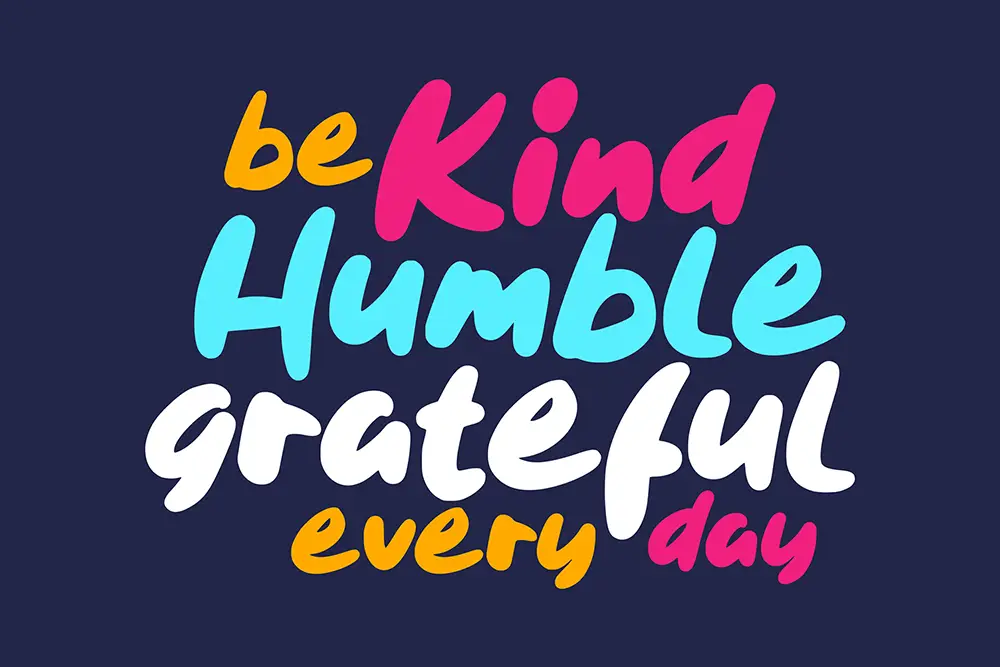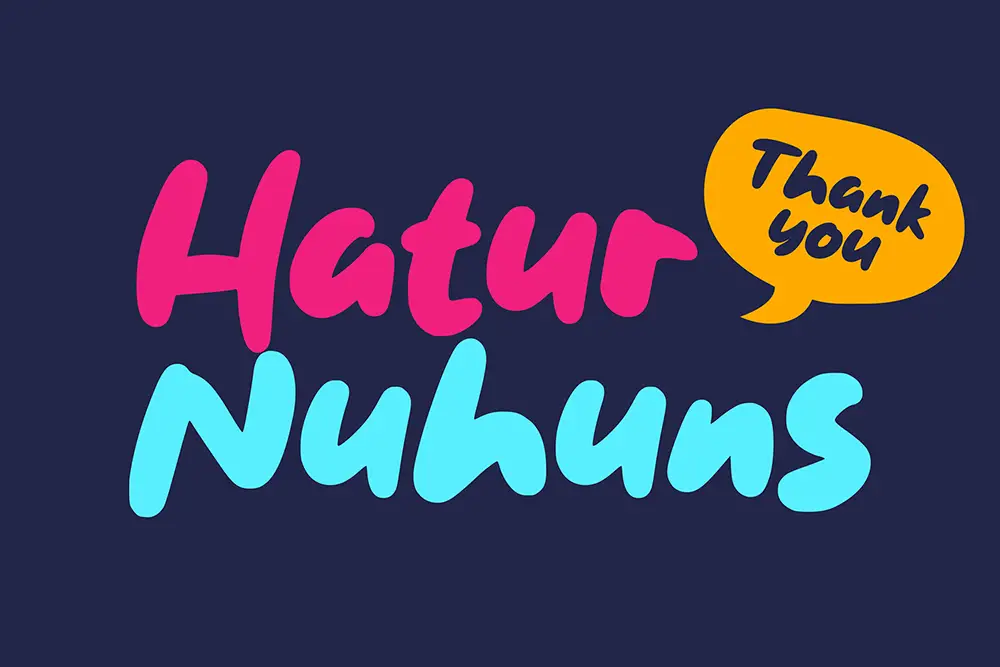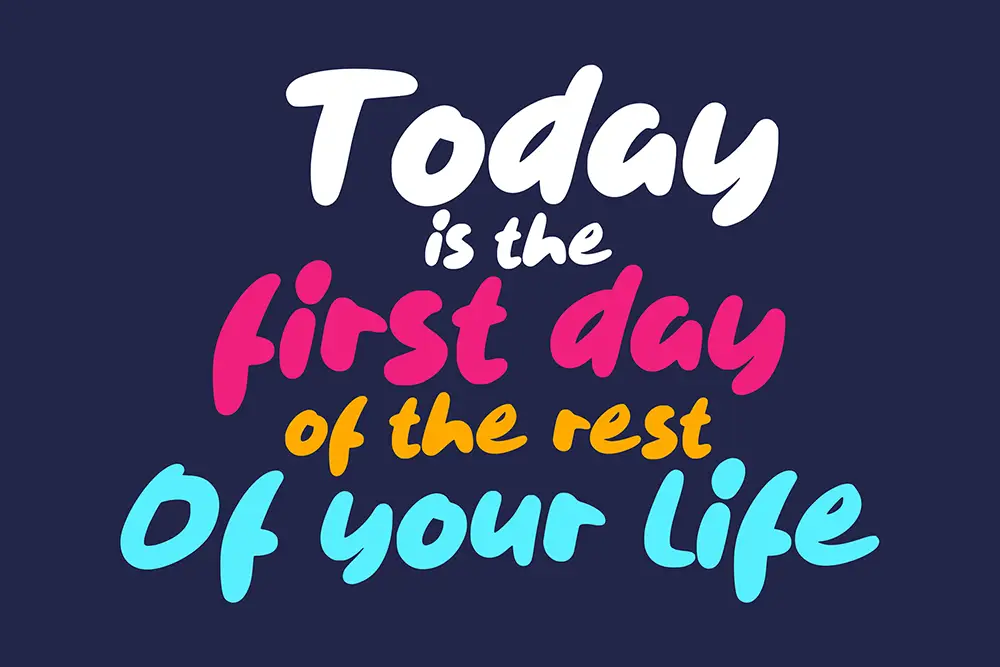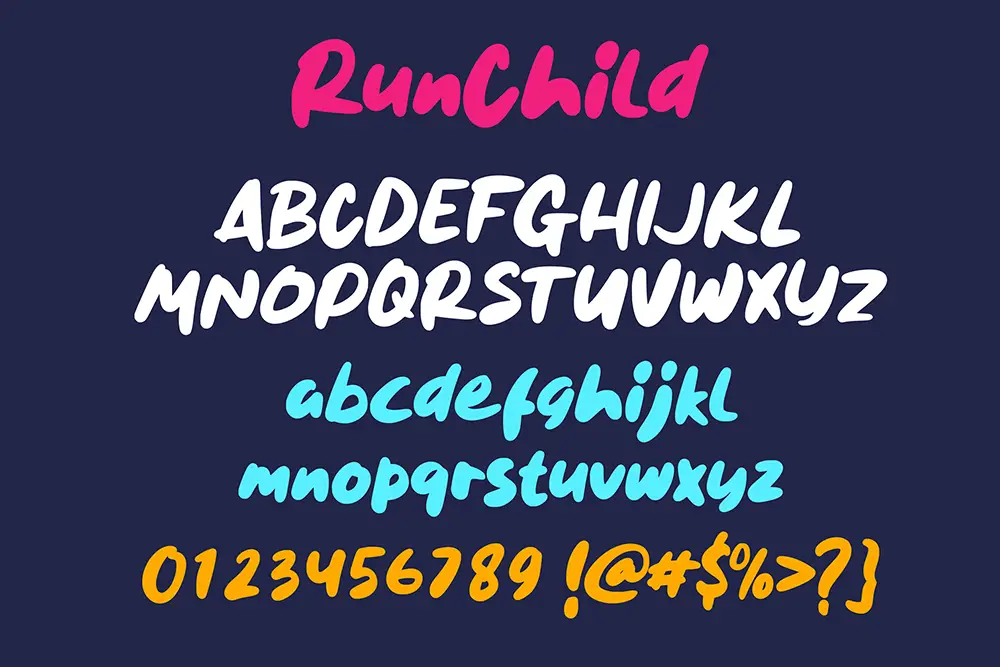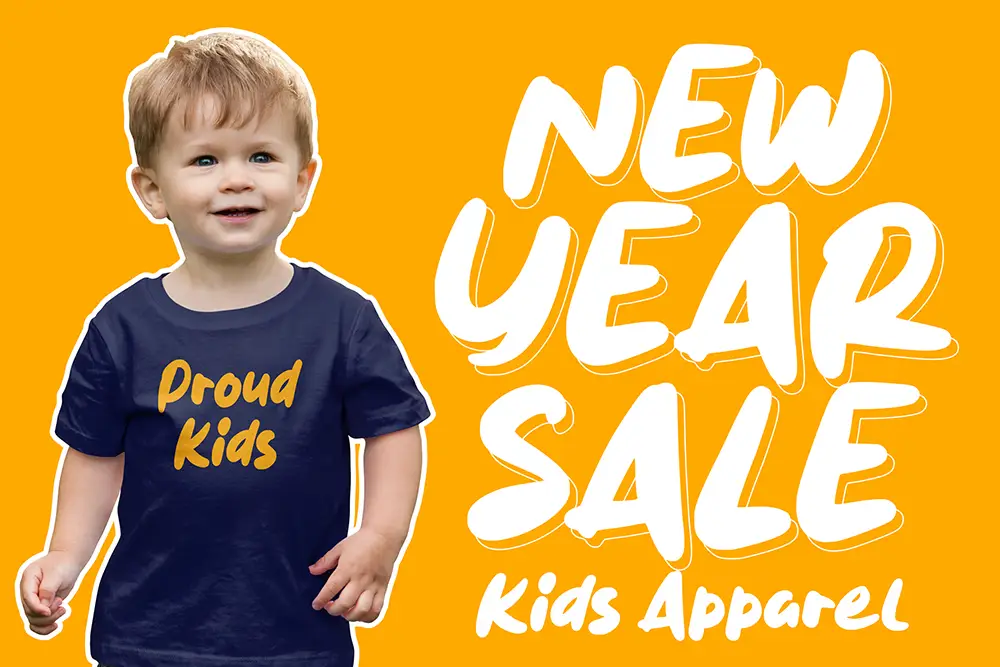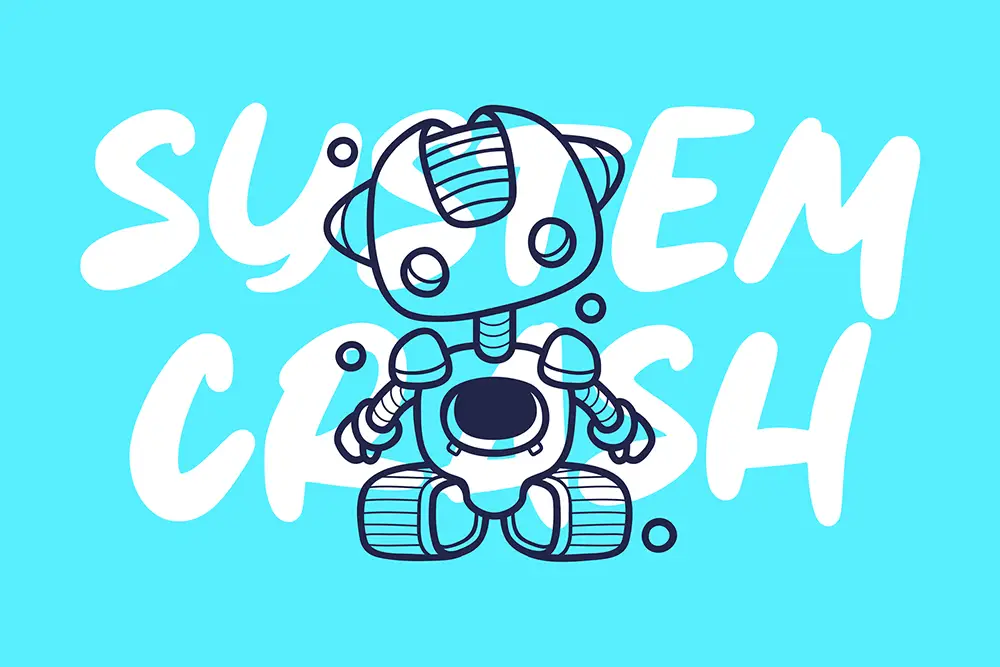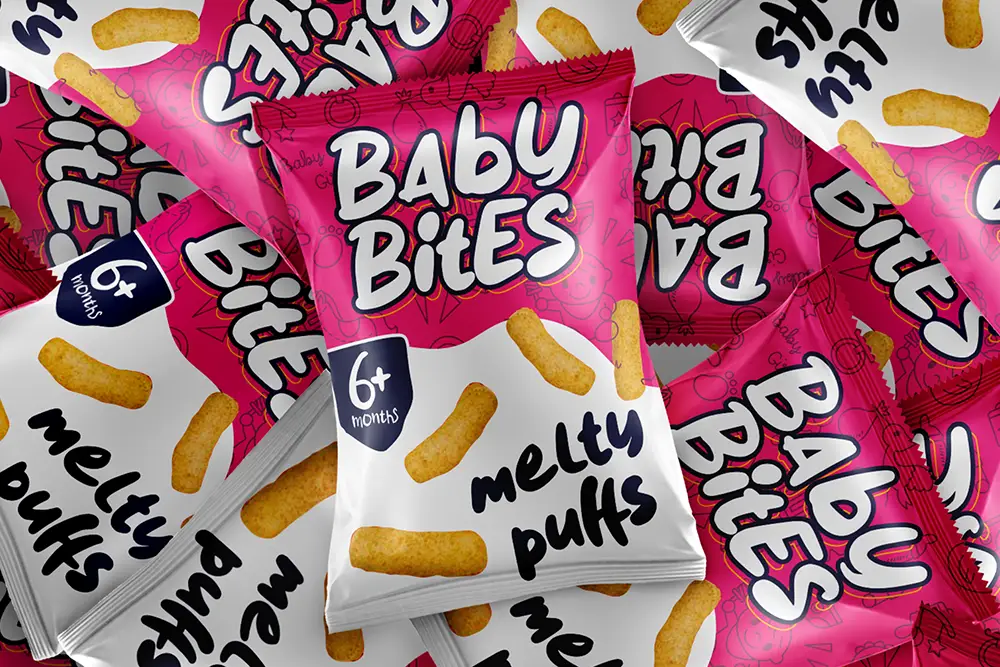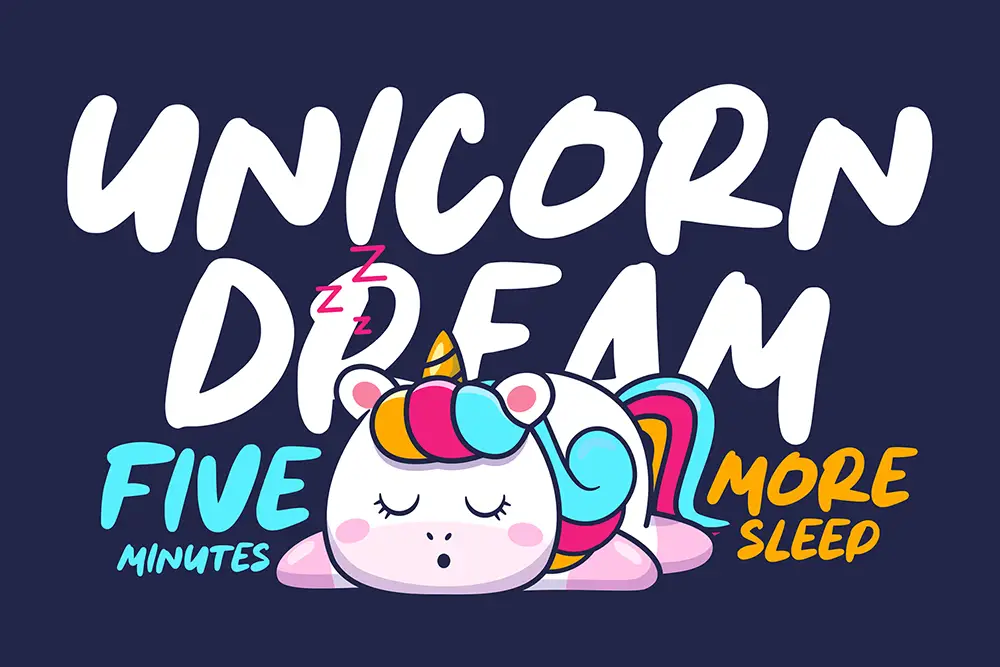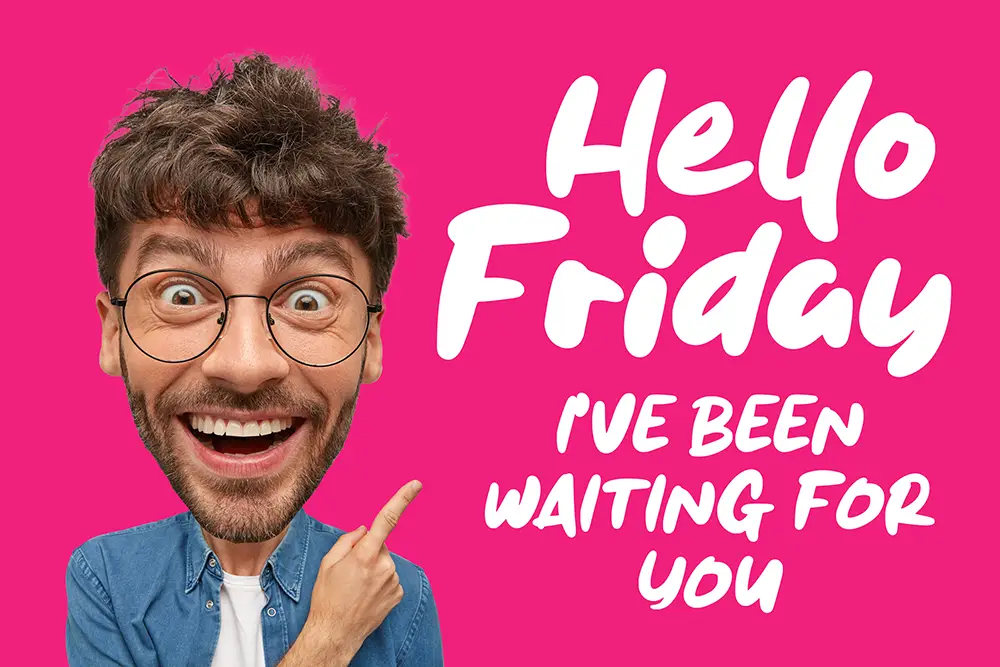
If you’re looking for a playful display font that instantly sparks joy, Run Child is here to transform your creative projects. With a delightful mix of uppercase, lowercase, numbers, and punctuations, this font is designed to add a vibrant, youthful, and fun touch to any design. Whether you’re creating branding for a children’s brand, designing colorful posters, or adding charm to your social media graphics, Run Child font delivers an engaging visual presence that’s impossible to ignore.
In the competitive world of design, choosing the right playful display font can set your project apart. Run Child isn’t just another cute font—it’s a versatile design tool that offers creative flexibility, professional quality, and a dose of lighthearted charm.
Why Run Child Stands Out
The Run Child playful font is all about personality. Its letterforms are bold yet soft, giving off a friendly and approachable vibe. This makes it ideal for logos, packaging, invitations, children’s books, T-shirts, and social media posts. Unlike overly generic playful fonts, Run Child strikes the right balance between readability and personality, ensuring your message comes across clearly while still looking unique.
From brand owners to freelance designers, many creatives are drawn to Run Child for its adaptability. It works equally well in digital projects and print media, giving you consistent results across platforms.
Perfect for Kids and Family-Friendly Projects
One of the most common uses for playful display fonts is in kids’ branding. Run Child’s rounded curves and joyful style make it perfect for:
- Children’s clothing brands
- Kids’ book covers and story illustrations
- Toy packaging
- Educational materials and worksheets
- Party invitations and greeting cards
If your design goal is to communicate fun, creativity, and warmth, Run Child is the perfect match.
Design Versatility
The Run Child display font isn’t limited to just child-oriented designs. Its bold yet soft design makes it ideal for quirky branding, cafe menus, handmade product packaging, and lifestyle blogs. The mix of uppercase and lowercase letters allows for creative headline designs, while numbers and punctuation help you maintain functional typography across all your layouts.
Key Features
- Uppercase & Lowercase Letters: Create dynamic, eye-catching typography that works for headlines and body text.
- Numbers & Punctuations: Maintain consistent design flow across marketing materials, price tags, or educational content.
- Playful & Friendly Style: Perfect for fun, lighthearted designs.
- Versatile Use: Works in print and digital formats without losing quality.
- Multilingual Support: Communicate your message to a wider audience without font limitations.
Why Designers Love Run Child
Designers appreciate fonts that are both visually appealing and functional. Run Child ticks both boxes by providing:
- Easy-to-read letterforms that maintain clarity even in playful styles
- A consistent weight and structure that works in both bold headlines and smaller text sizes
- Creative flexibility, making it suitable for a wide range of projects beyond just kids’ themes
It’s no surprise that many designers consider Run Child a go-to playful font for branding, packaging, and creative campaigns.
Pairing Ideas
Practical Use Cases
Here are some ideas for how you can make the most of Run Child – Playful Display Font:
- Branding: Logo design for playful brands, children’s products, or cafes.
- Social Media: Eye-catching Instagram posts, TikTok thumbnails, and Facebook ads.
- Print Design: Posters, flyers, and event invitations.
- Merchandise: T-shirts, mugs, tote bags, and stickers.
- Web Design: Website headers and creative navigation menus.
How Run Child Boosts Your Design Game
The right font doesn’t just decorate—it communicates. Run Child instantly conveys friendliness and creativity, making your designs more relatable to your target audience. In a market where design differentiation matters, choosing a font like Run Child can help you stand out in the crowd.
In today’s design world, a playful display font like Run Child is more than just a typeface—it’s a storytelling tool. Its versatile style, multilingual support, and professional build make it a must-have in any designer’s collection. Whether you’re working on a children’s brand, a lifestyle blog, or simply want to inject some fun into your designs, Run Child is your go-to choice.